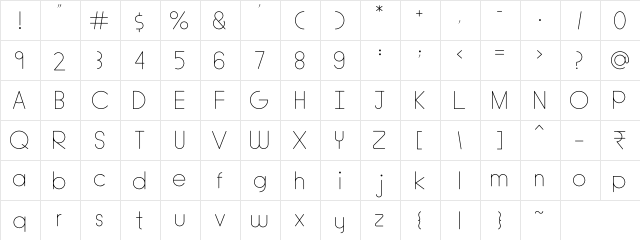
Adlanta Light
| Designer | Swapnil Deshpandey |
Design Context for Adlanta Typeface
Adlanta offers clean, dependable letterforms without strong stylistic allegiance, making it a practical choice for designers who need flexibility. The delicate stroke weight brings airiness and refinement to layouts.